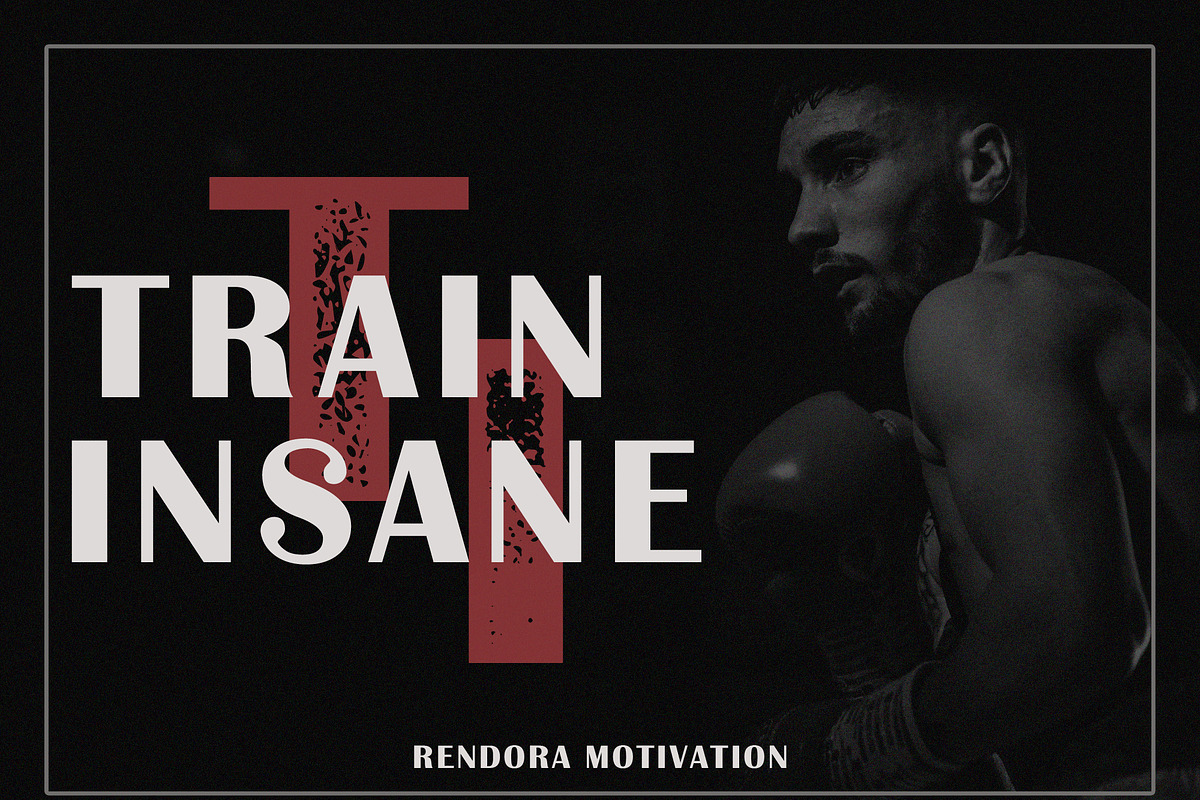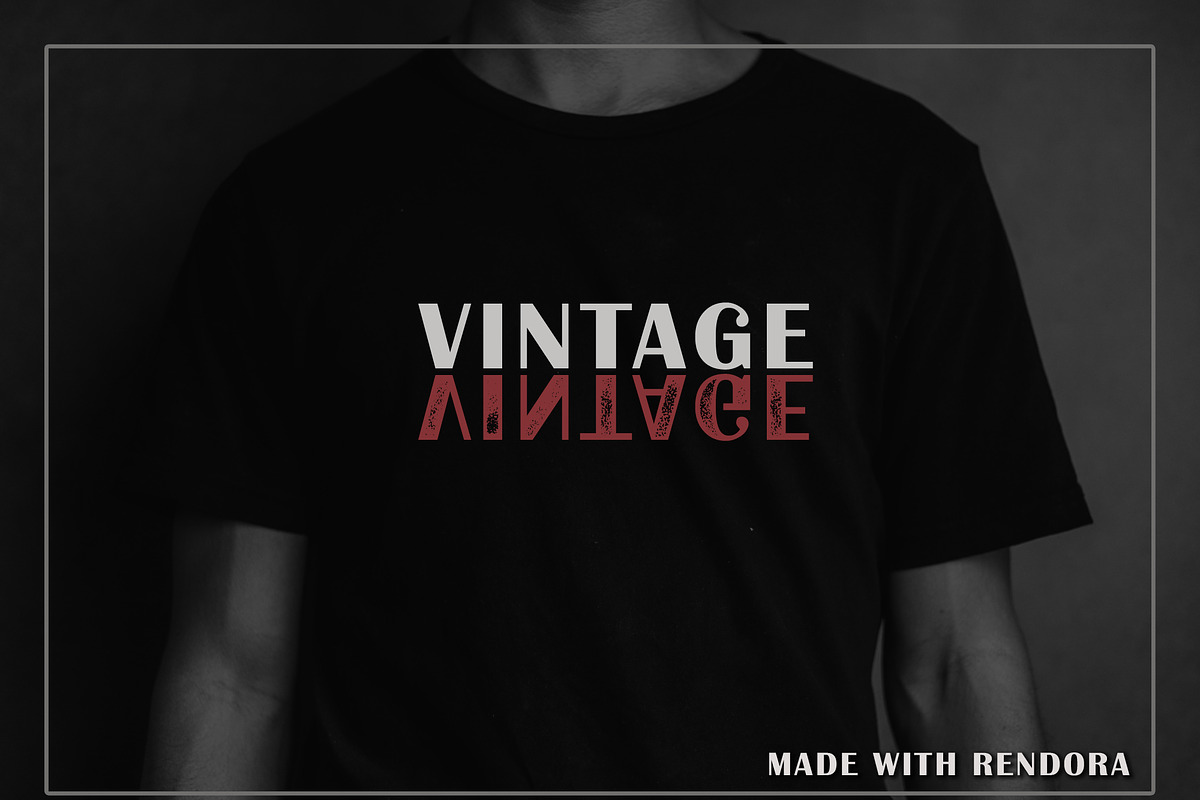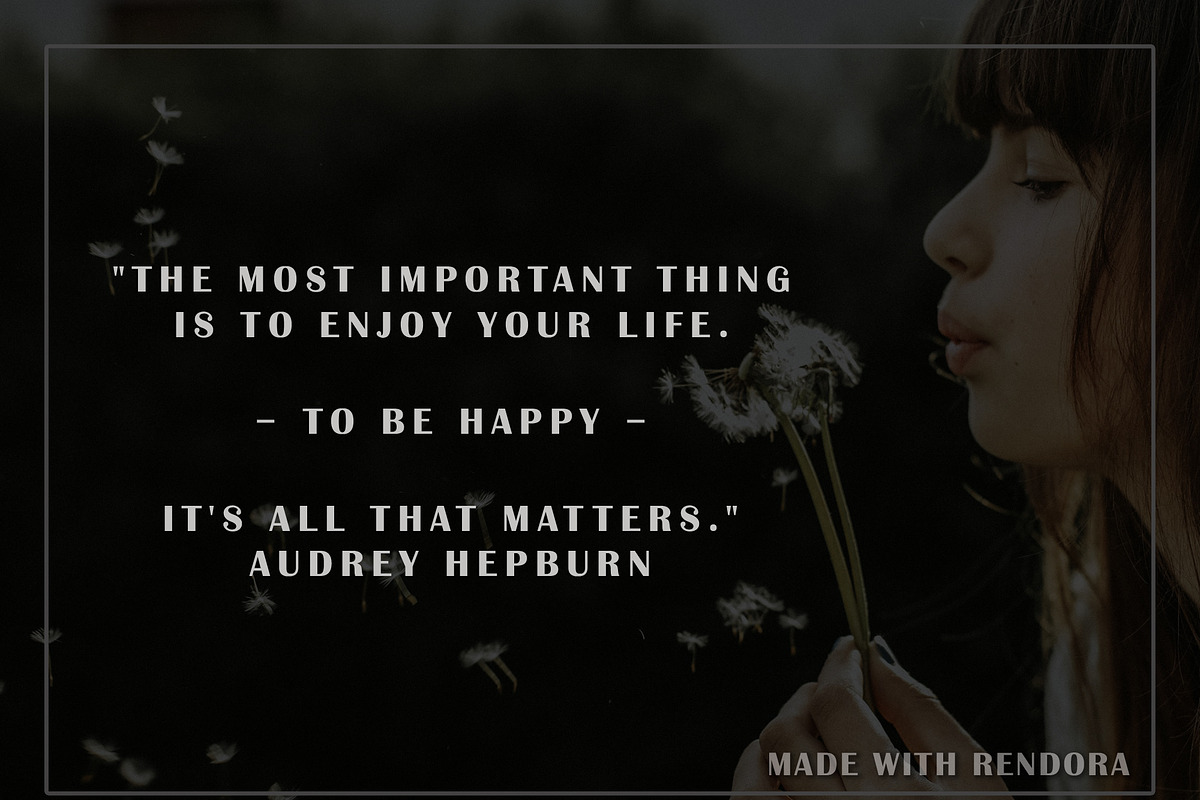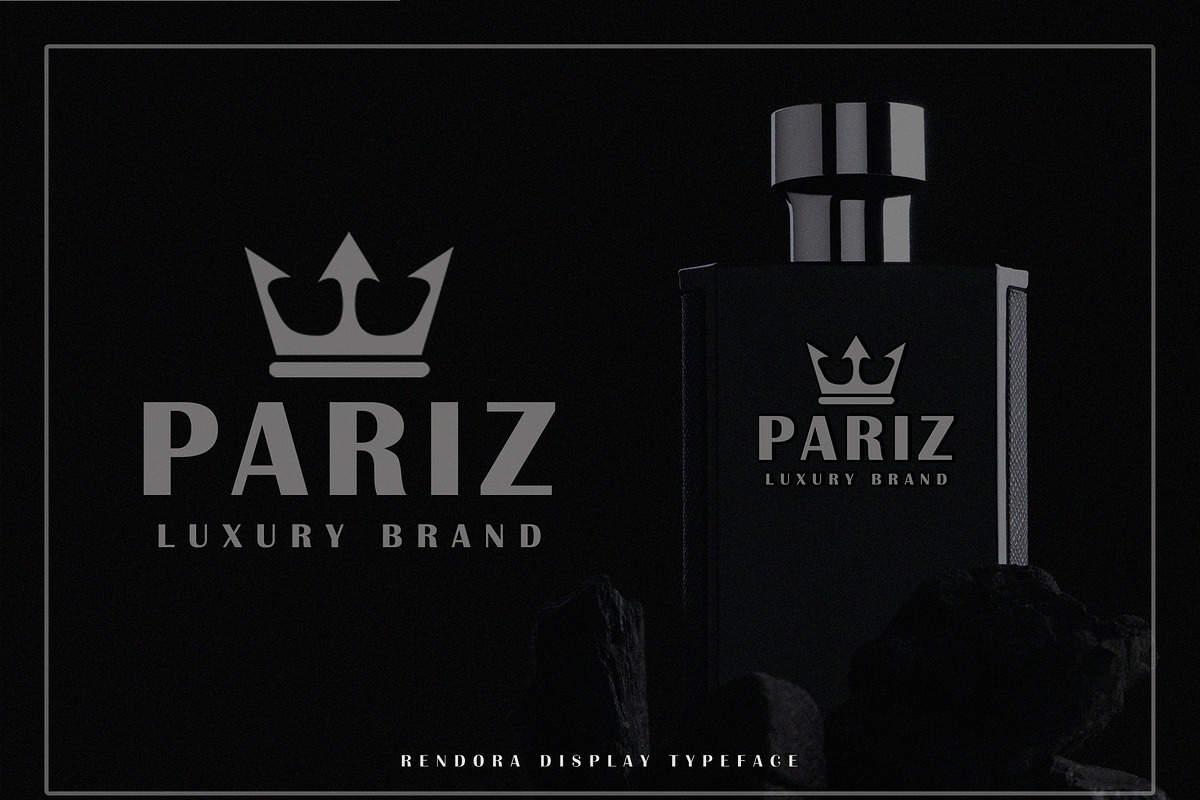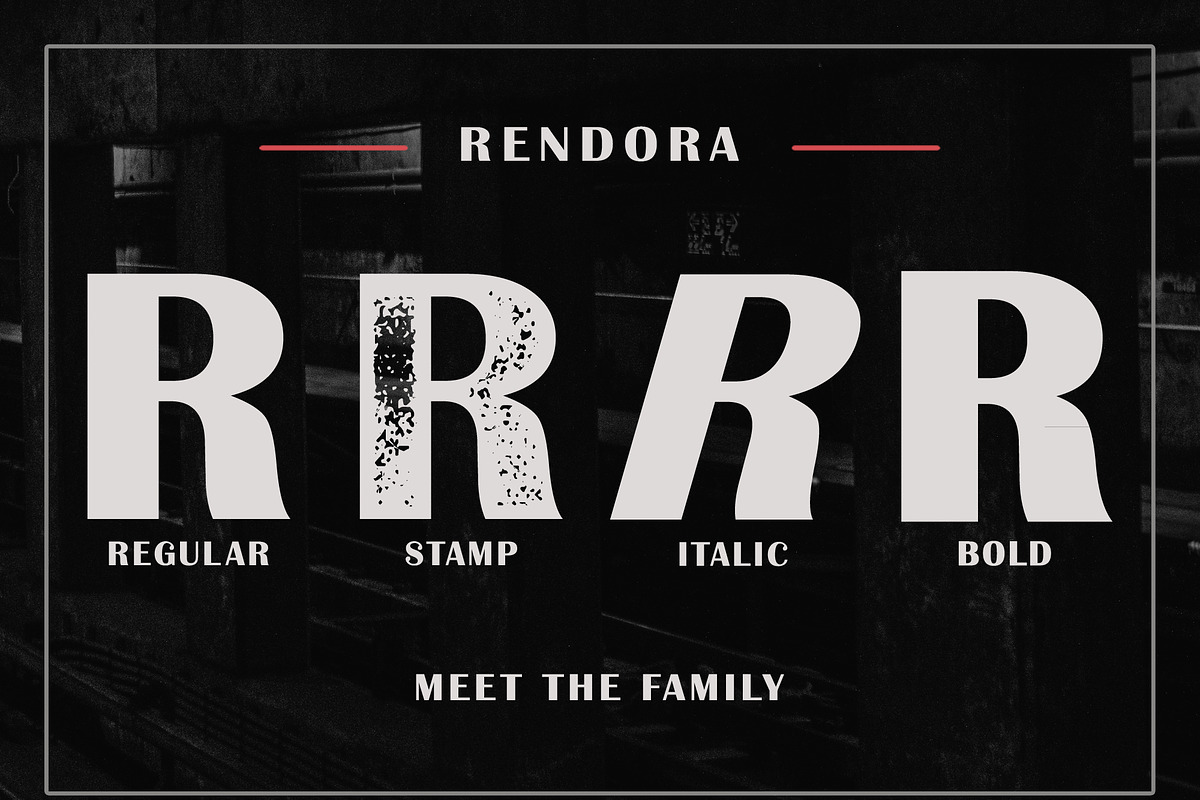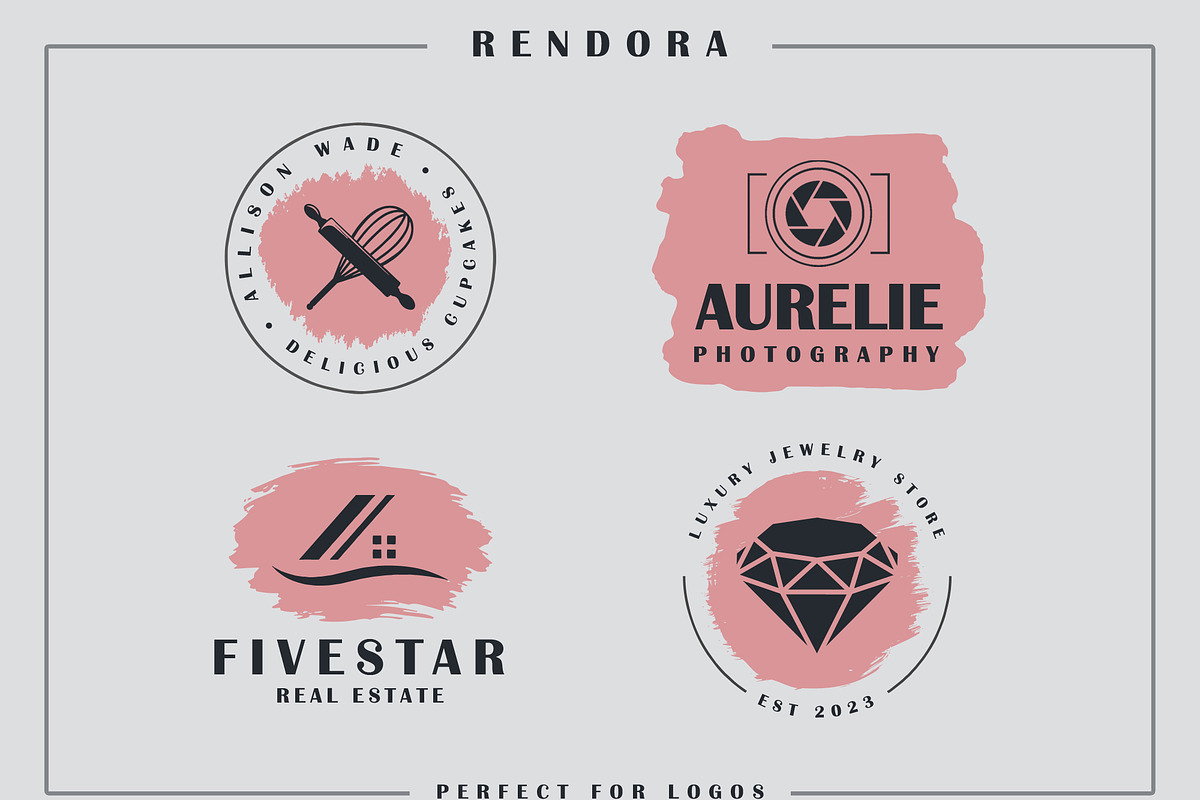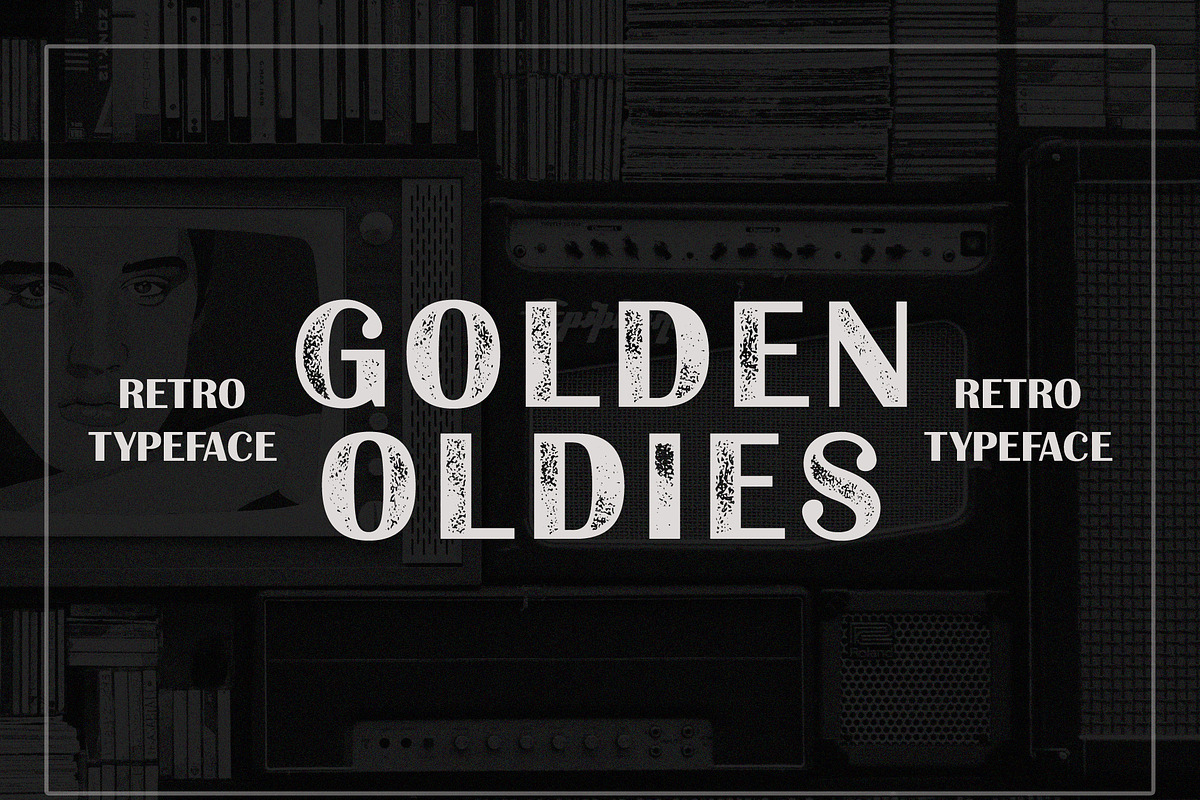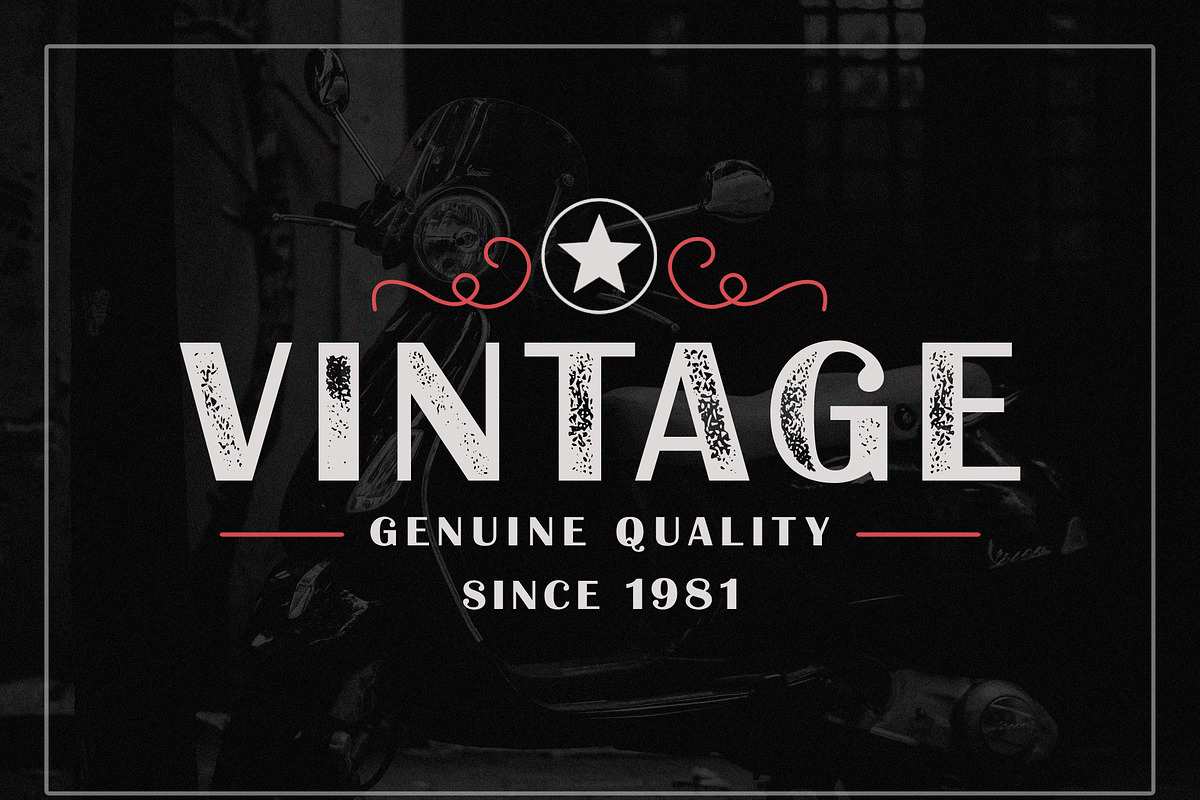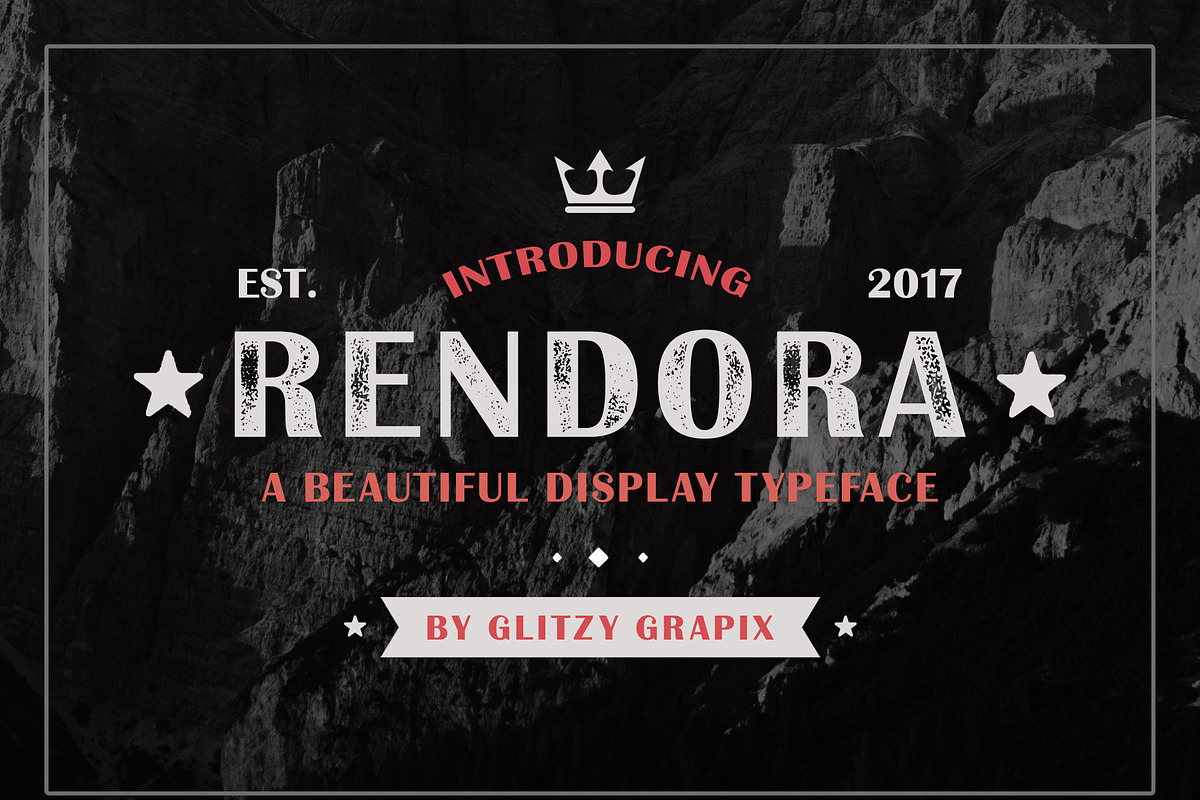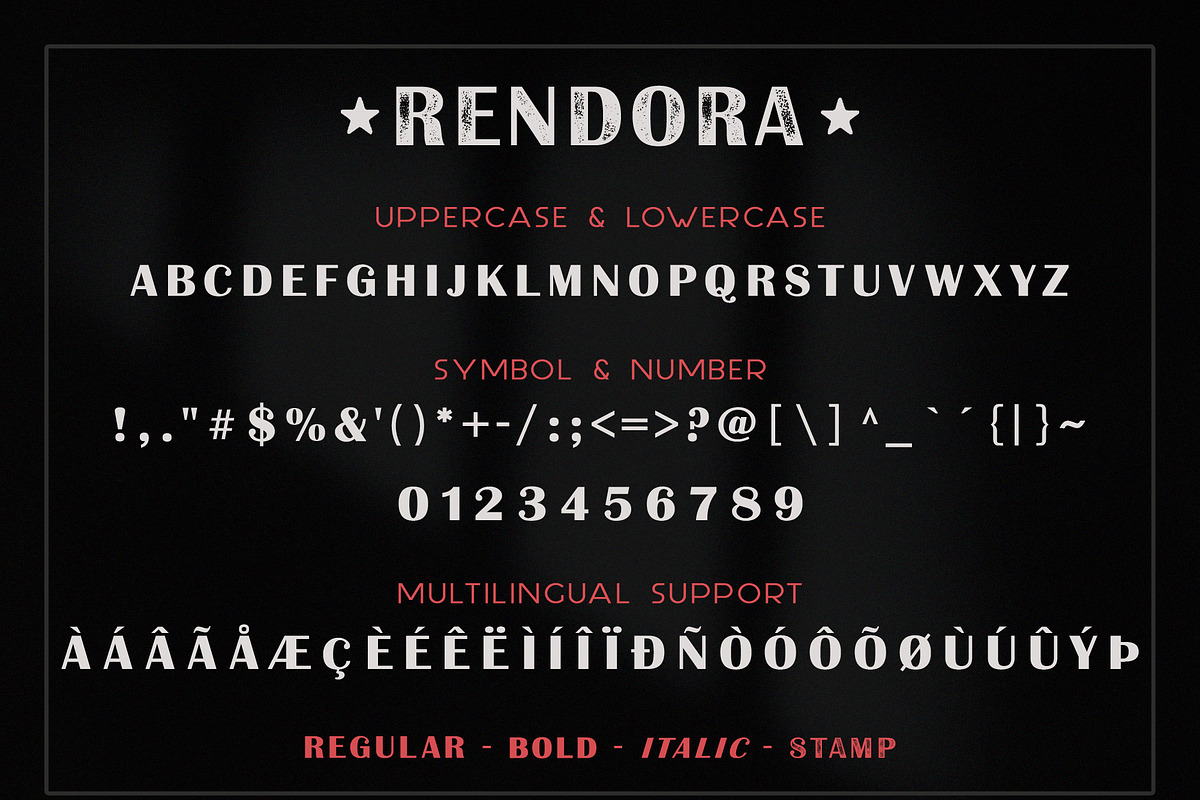
Rendora - Vintage Stamp Sans Serif
✦ Rendora – Vintage Stamp Sans Serif ✦
Meet Rendora, your new go-to vintage sans serif font with a rugged, stamped finish that screams handcrafted authenticity. Inspired by old print shops, travel stamps, and retro branding, Rendora delivers bold impact with a perfectly imperfect texture that brings your designs to life.
From logo designs and brand marks to merch, packaging, and editorials, Rendora blends clean lines with a gritty, timeworn feel that designers love. It’s the kind of font that looks just as good on a whiskey label as it does on a streetwear tee.
If you’re into fonts that speak louder than words — Rendora is calling.
- Uppercase Letters
- Built-in Stamp Texture for that retro print shop vibe
- Perfectly imperfect – no extra work needed
- Retro & Vintage Logos
- Coffee & Beard Oil Packaging
- T-Shirts, Posters, Stickers
- Adventure & Travel Brands
- Tattoo & Barber Shop Vibes
Why Rendora? Because you're tired of boring, clean fonts. Rendora makes noise. Rendora adds soul. Rendora gets noticed.